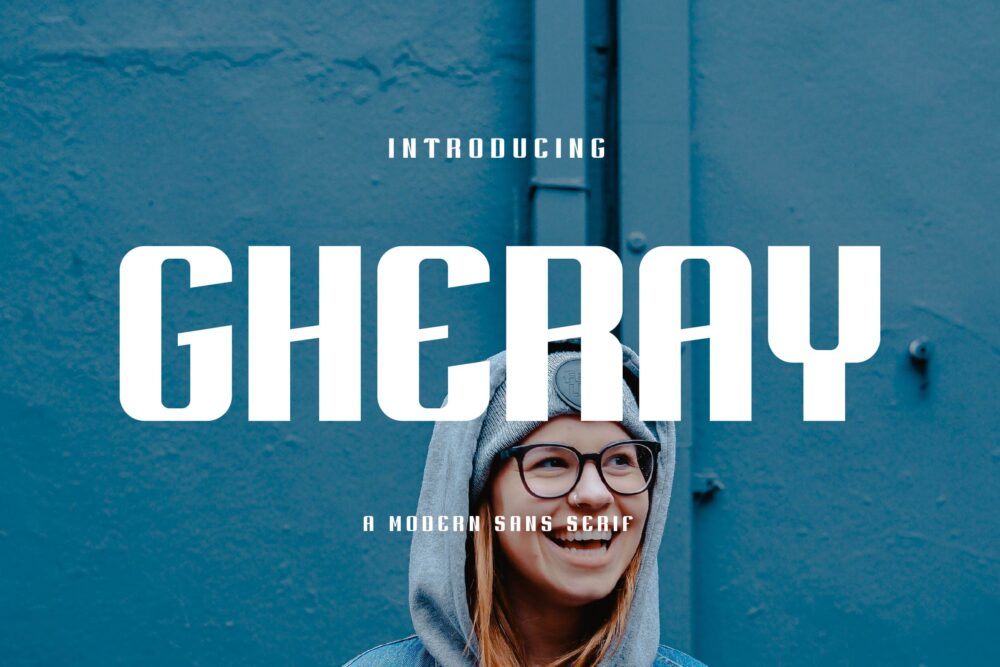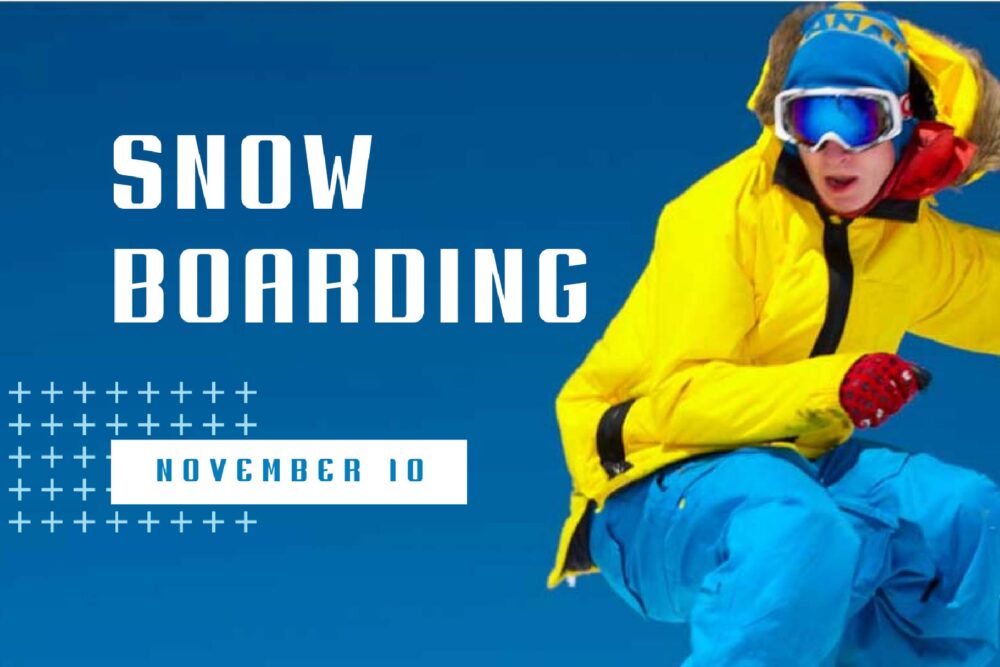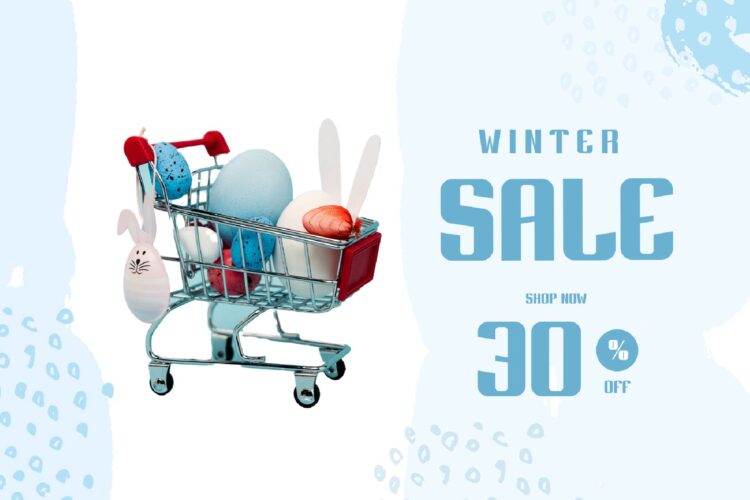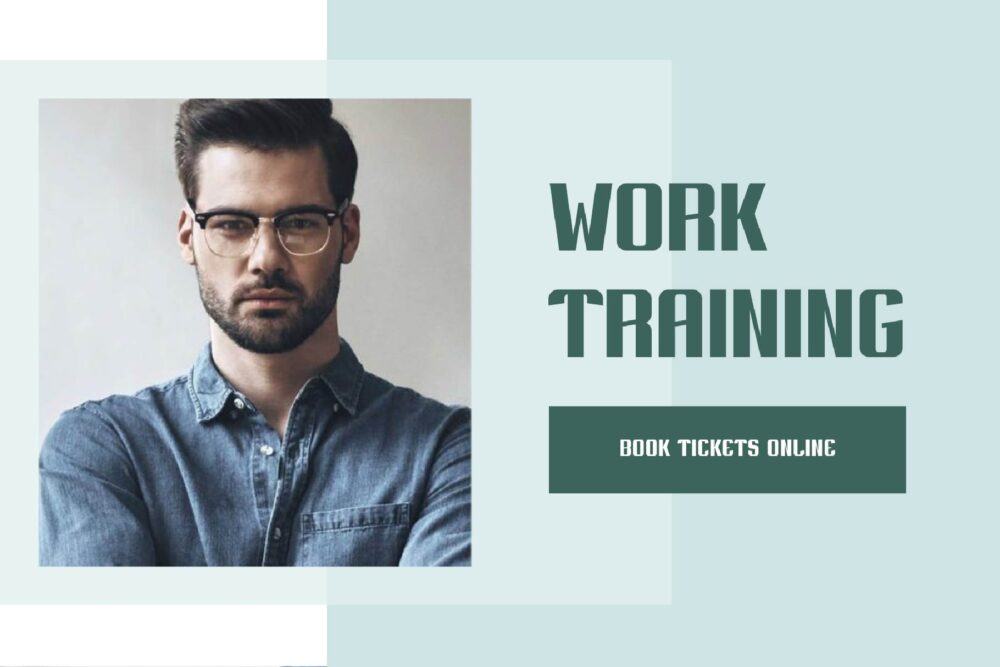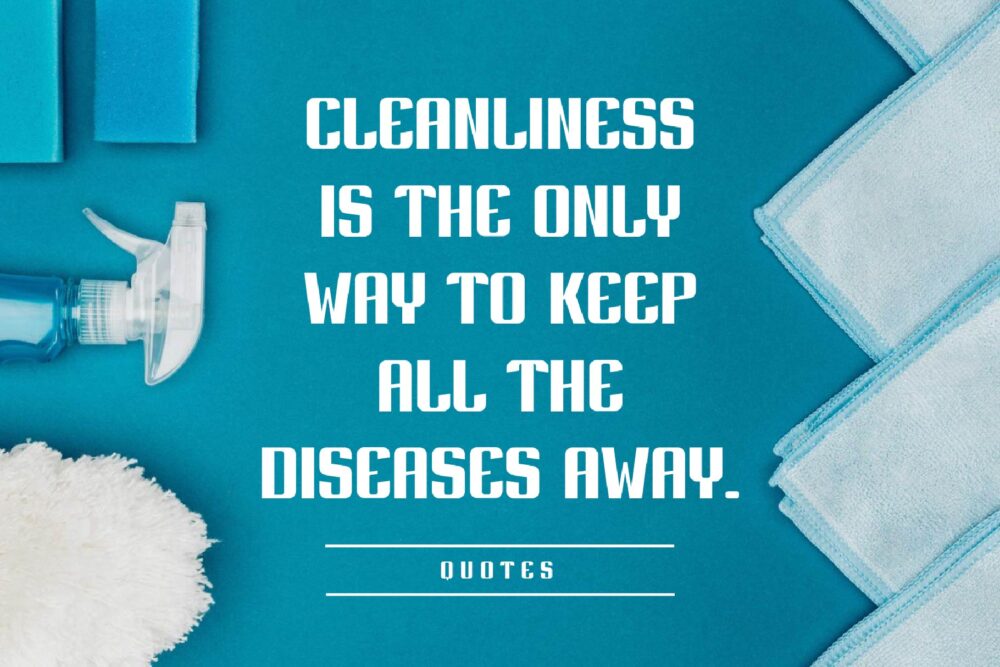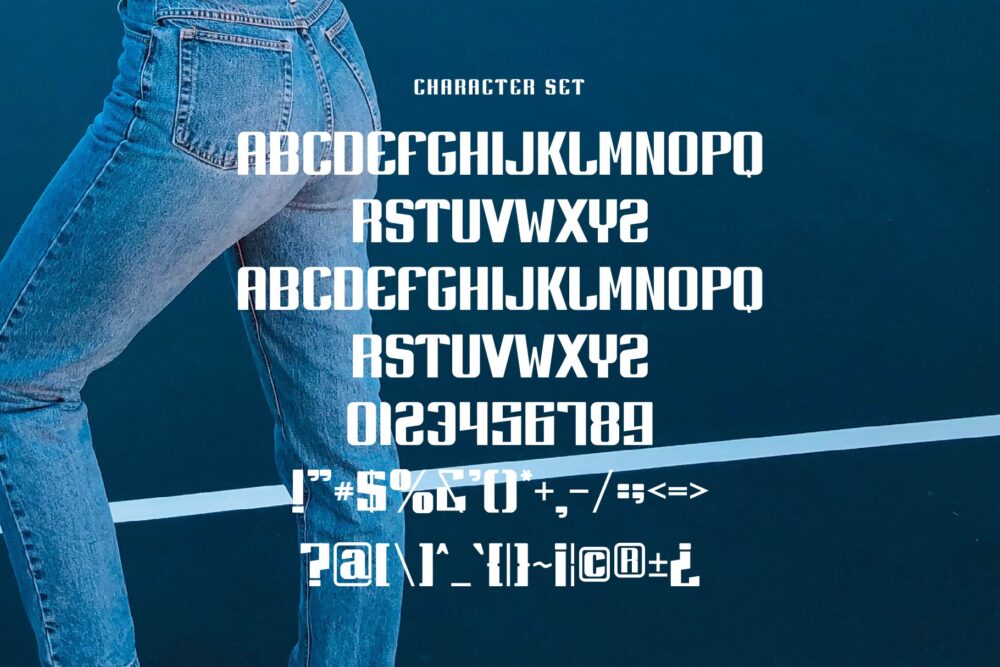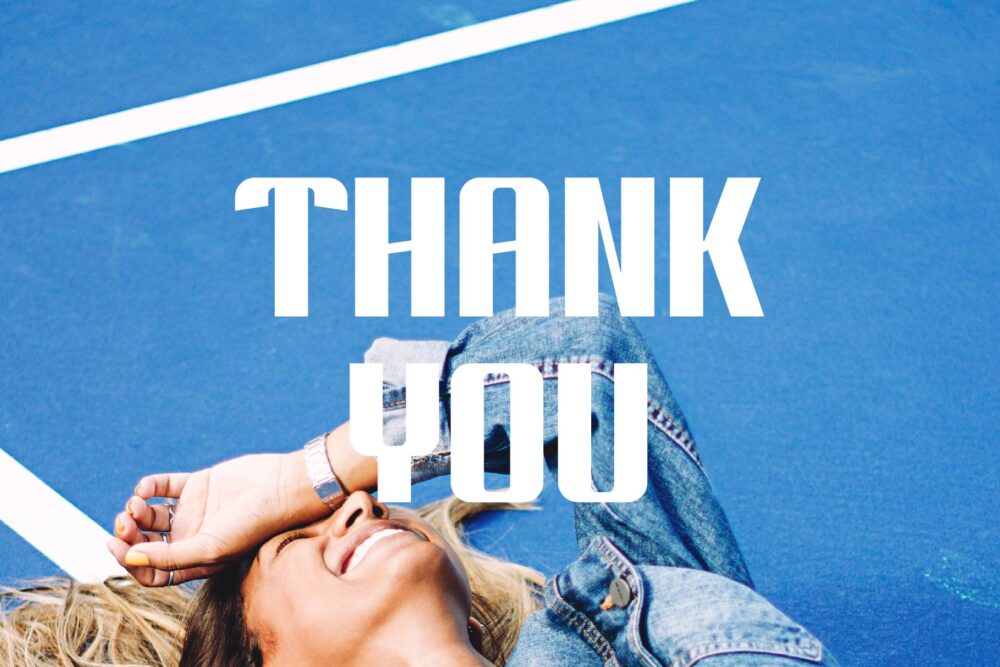
Gheray
Gheray Sans Font Typeface inspired by the famous minimalist logo perfect for the purposes of designing templates, brochures, videos, advertising branding, logos, invitation, layout design, elegant crafting, beauty design and other.
Gheray – Modern Sans Serif Font